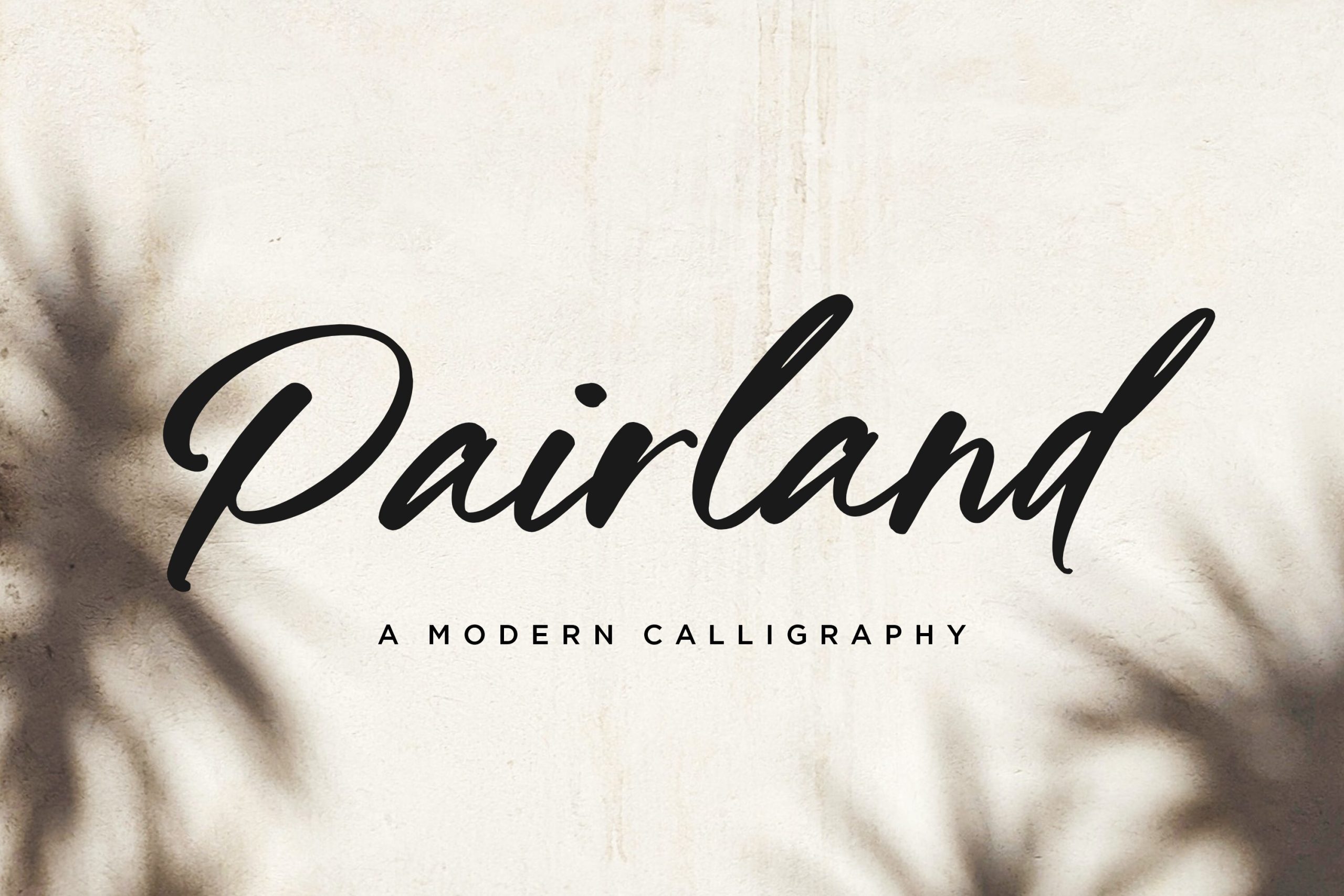
Pairland Font
Pairland can be described as an elegant modern calligraphy font perfect for adding an individualistic flair to your designs. Crafted with great care and consideration for each detail, Pairland is highly versatile and suitable for use across a variety of design tasks such as branding, logos and invitations – its modern handwriting is certain to leave an impressionful lasting impression!
Pairland Calligraphy Script Font